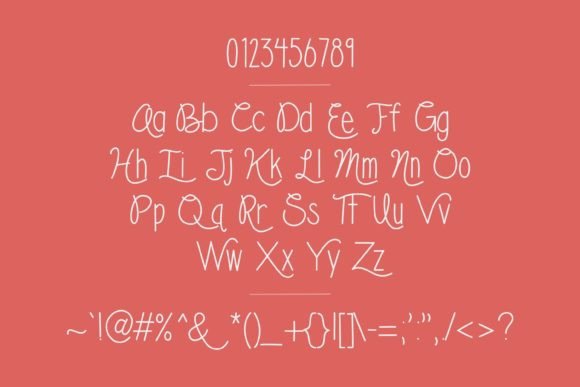
You and Me Font
About You and Me Font
Discover the charm of “You and Me,” the font that effortlessly adds a touch of sweetness to all your creative endeavors. If you’re on the hunt for a font that radiates warmth and is perfect for various projects, look no further—You and Me is the answer.
This delightful font is tailor-made for stationery, invitations, and greeting cards. Its inherent sweetness makes it an ideal choice for projects where a dash of personality is needed. From heartfelt notes to celebratory invitations, You and Me infuses a sense of charm that resonates with recipients, making your creations truly special.
One of the standout features of You and Me is its readability. Even with its charming and whimsical style, this font is designed to be easily legible. Your recipients will not only appreciate the sweetness of the font but also the effort you put into creating something visually appealing and special.
Imagine the joy on someone’s face as they receive a greeting card or an invitation adorned with You and Me. It’s not just a font; it’s an expression of care and thoughtfulness. Your projects become more than pieces of paper; they become tokens of affection and creativity.
The versatility of You and Me extends beyond traditional paper projects. Whether you’re working on digital designs, social media graphics, or any other creative endeavor, this font seamlessly integrates, adding a touch of sweetness to every visual element.